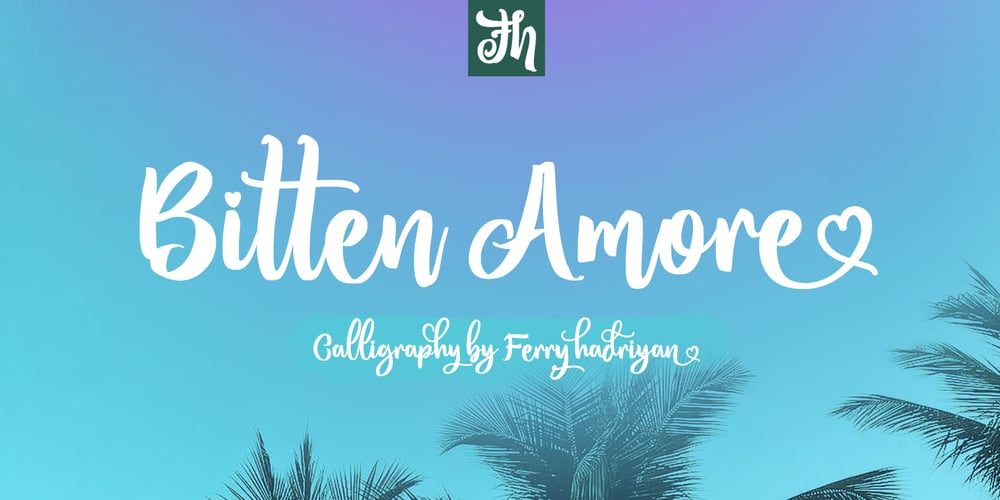
Bitten Amore Font Family was designed by Ferry Hadriyan and published by FHFont. Bitten Amore contains 1 styles and family package options. Bitten Amore is script font with hand-lettering brush style, and includes OpenType features. It is suitable for design, element design, weddings, events, t-shirts, logos, badges, sticker, and any other awesome work.